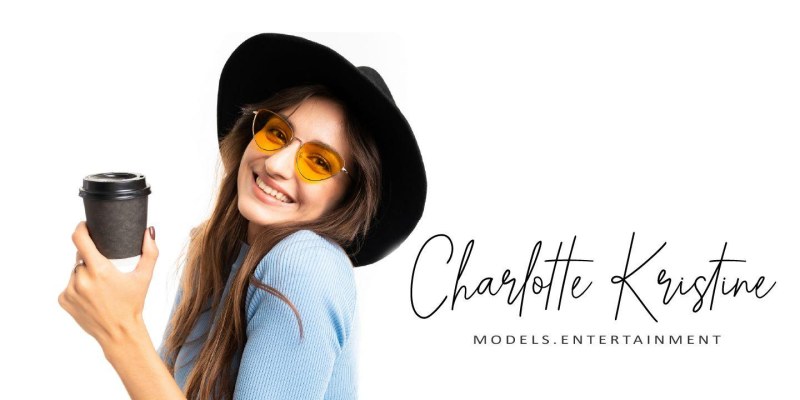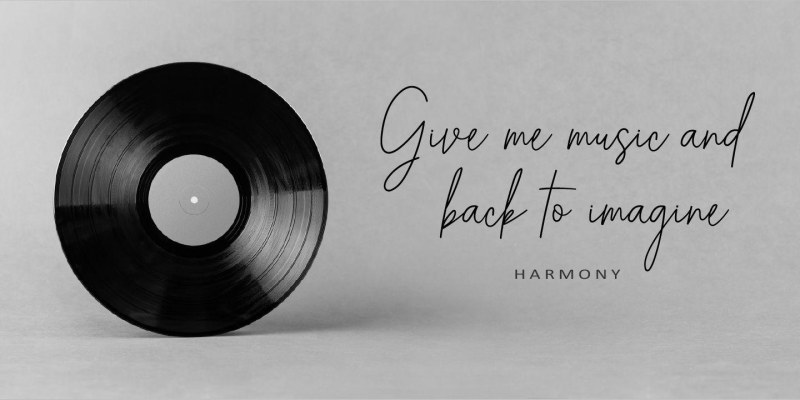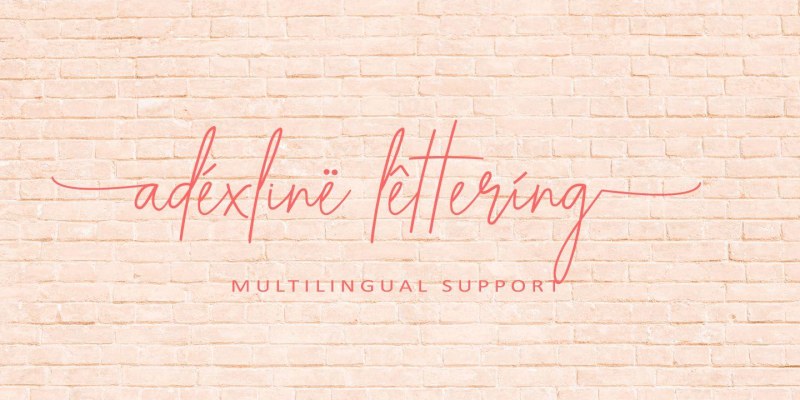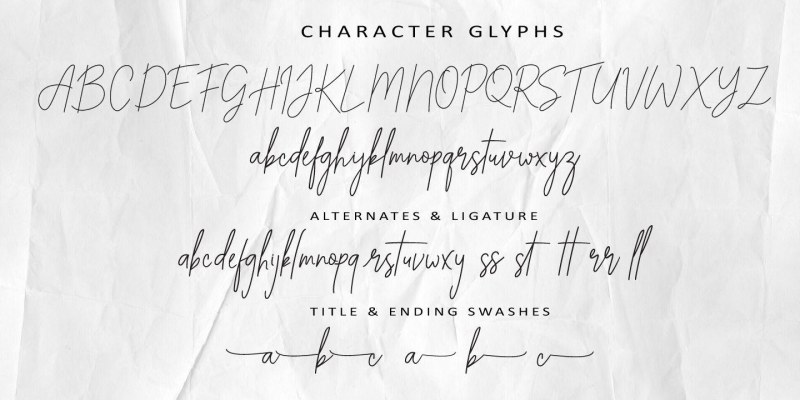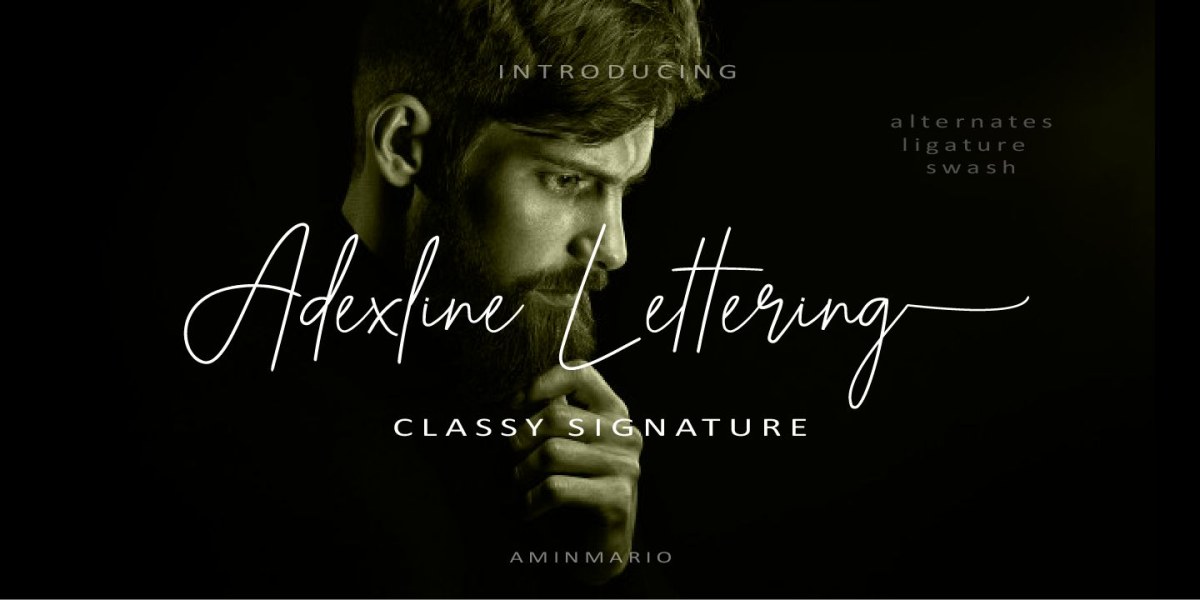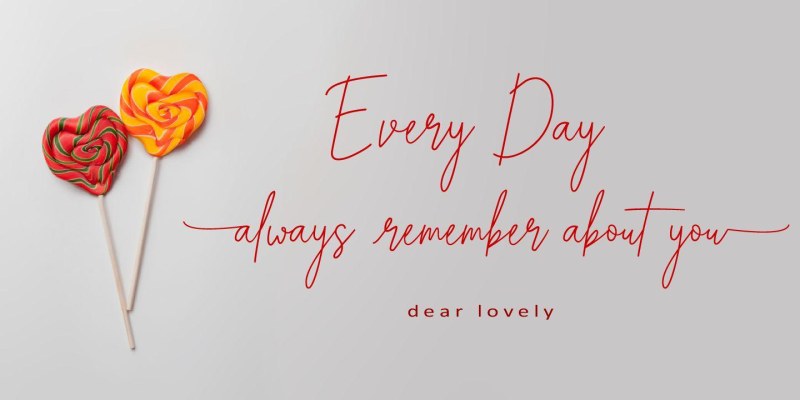
Adexline Lettering Font
Adexline Lettering is a new classy script with a dancing baseline stylish handwritten , classic script style make this font looks natural, classy and perfect for any awesome project that need hand writing taste. This is suitable for logos, watermarks on photography, signatures, branding, advertisement, quotes, invitations, stationery, wedding design, album covers, business cards, clothing, magazines, posters, and more! As usual ,the font comes with many OpenType features such as Alternates, Ligature, Title and Ending Swash, and also support multilingual. You can access all those alternate characters by using OpenType or Glyph program such as Adobe Illustrator CS, Adobe Photoshop cc, Adobe InDesign, etc.
Where Adexline Lettering Font works best
Complete brand systems
With multiple weights, Adexline Lettering Font can carry a whole identity — logo, headings, body copy and captions — consistently across print and web.
Websites & apps
Families let you set hierarchy with weight instead of switching typefaces, which keeps interfaces fast and coherent.
Print collateral
Brochures, catalogues and business cards benefit from a family that covers display and text sizes.
What is Adexline Lettering Font good for?
Adexline Lettering Font is a Font Family typeface tagged Branding, Classic, Editorial, Font Family. It works well for headlines, logos, posters, social media graphics and branding projects that need a distinctive font family look.